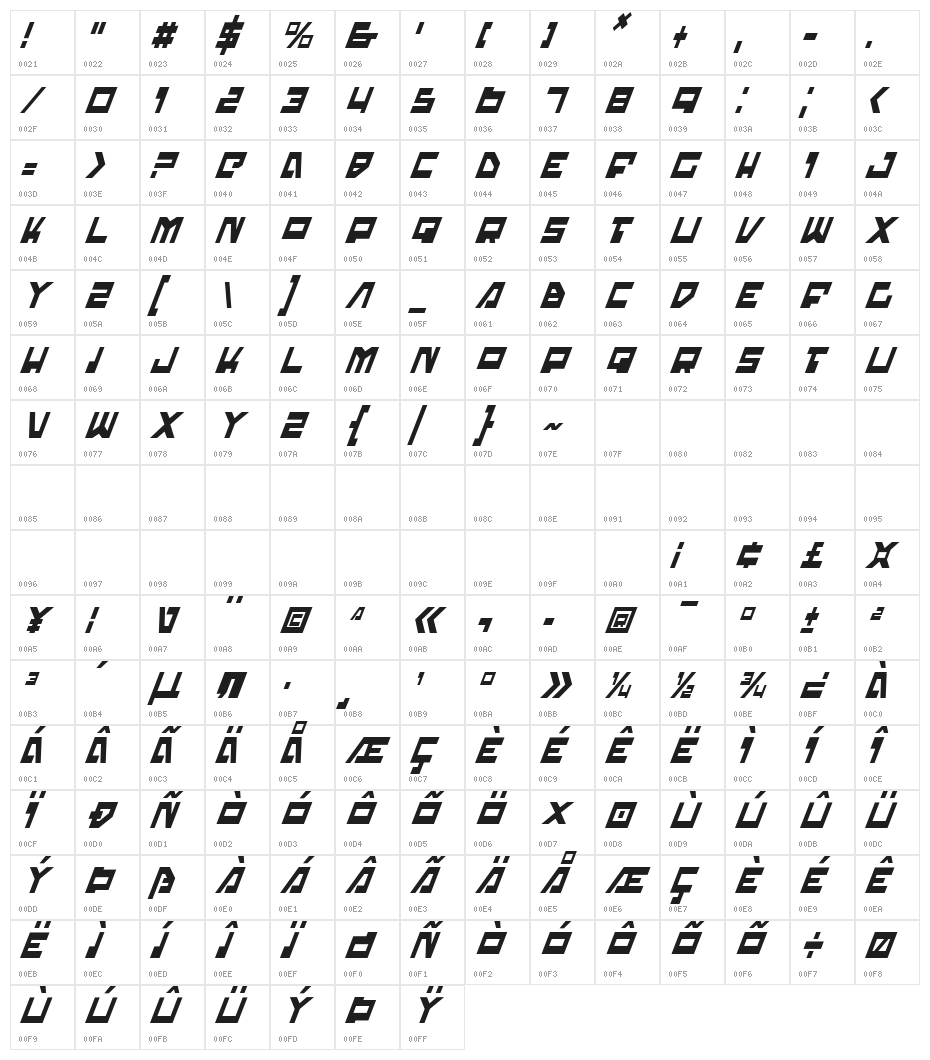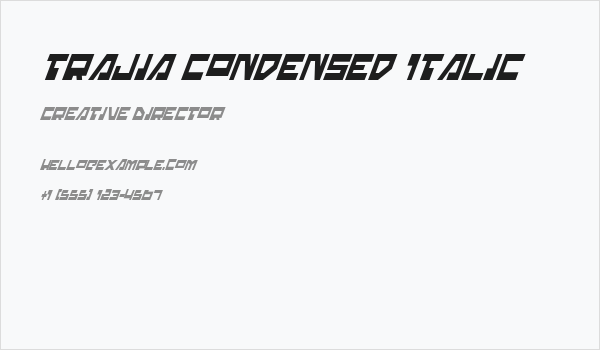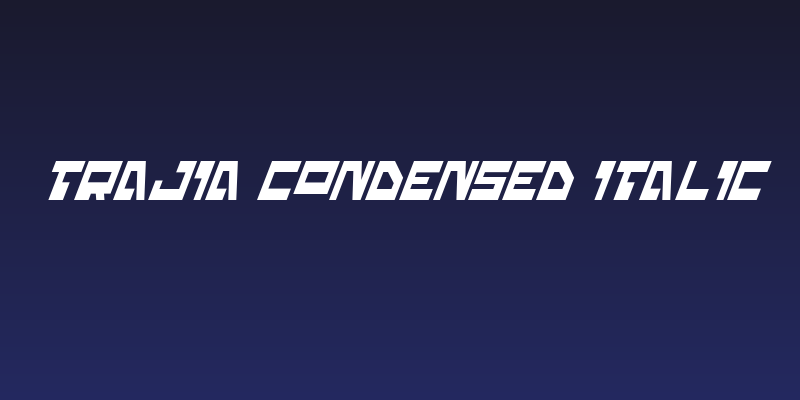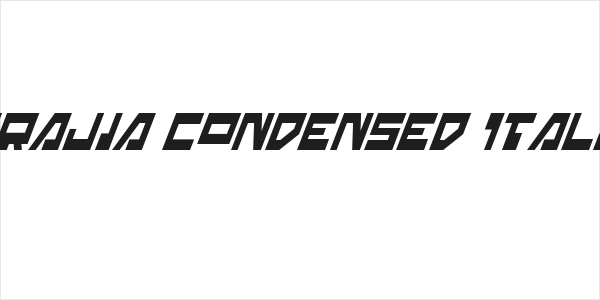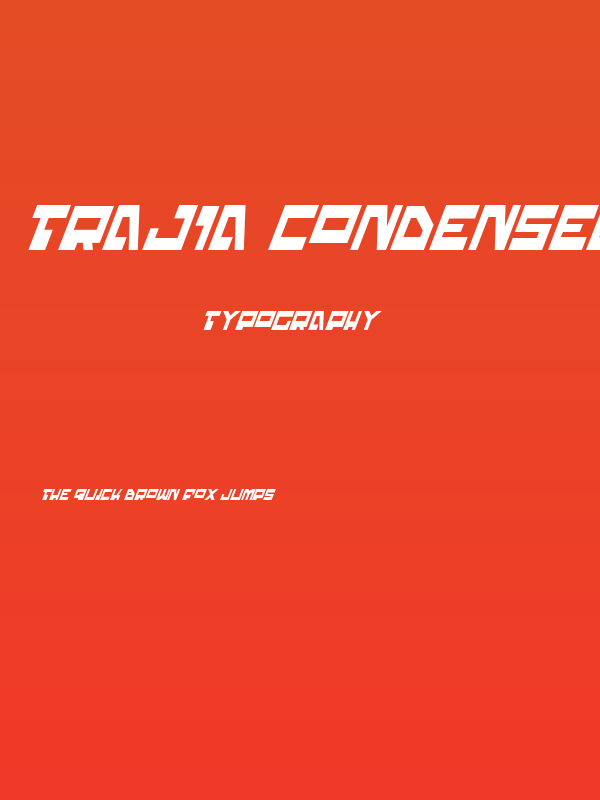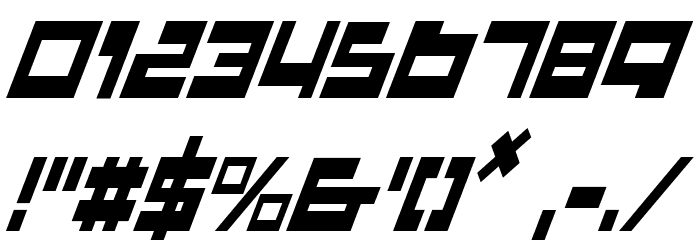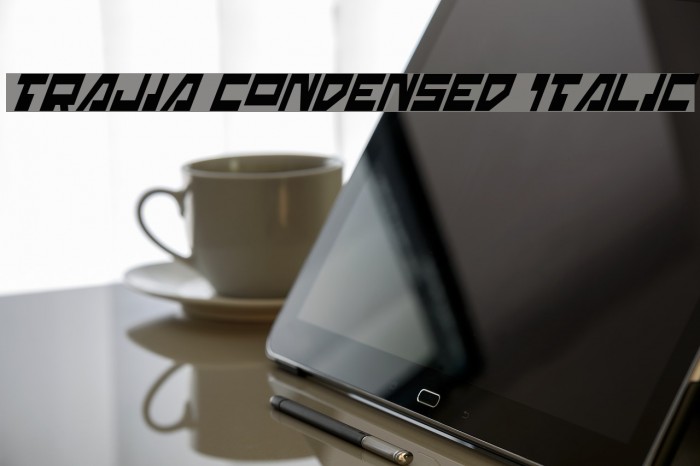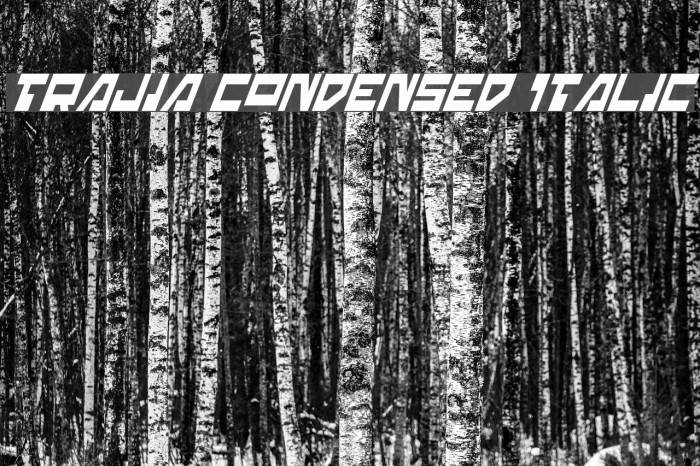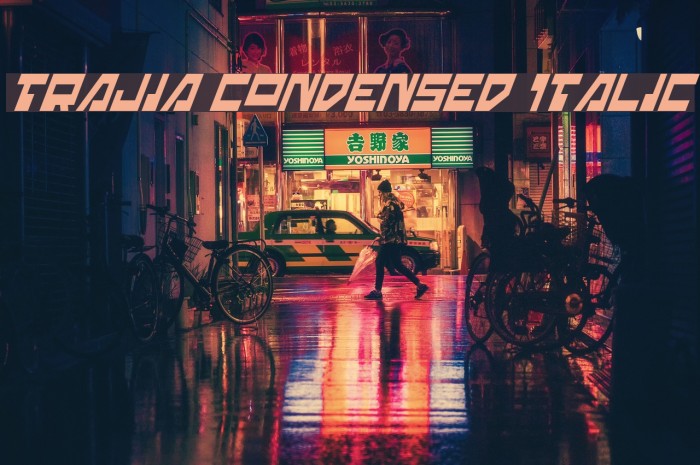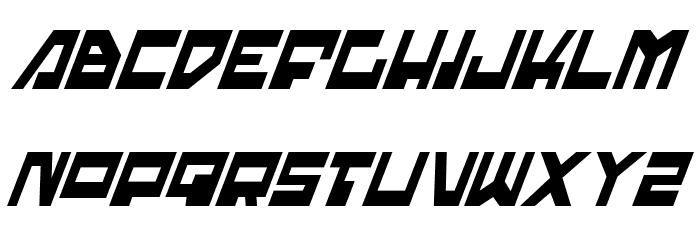
Trajia Condensed Italic Font
Trajia Condensed Italic Description
This font features a bold, angular design with a futuristic and dynamic appearance. The characters are condensed and italicized, giving them a sense of motion and speed. The sharp edges and geometric shapes contribute to a modern and edgy aesthetic. The uppercase and lowercase letters maintain a consistent style, with numbers and special characters following suit. This font is ideal for projects that require a strong, impactful visual presence.
| Proposed Projects | Ideal for sci-fi themed designs, video game titles, sports branding, and dynamic posters. |